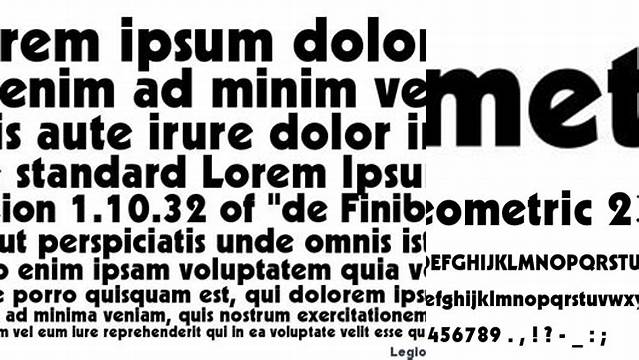
Hey guys! Looking to jazz up your designs with a font that's both modern and impactful? The Geometric 231 Heavy font might just be what you need. In this article, we're diving deep into everything you need to know about this awesome font, where to find it for free, and how to make the most of it in your projects. Let's get started!
What Makes Geometric Fonts Stand Out?
Geometric fonts, like the Geometric 231 Heavy, are characterized by their clean lines, precise shapes, and overall minimalist aesthetic. They're built on basic geometric forms such as circles, squares, and triangles, giving them a structured and modern look. This makes them incredibly versatile for a wide range of design applications. When you're aiming for clarity and a contemporary feel, geometric fonts are your best bet. They lend a sense of order and sophistication to any project.
The Appeal of Simplicity in Design
One of the key reasons geometric fonts are so popular is their simplicity. In a world often cluttered with visual noise, the clean, unadorned nature of these fonts offers a refreshing break. This simplicity doesn't mean they lack character; rather, it allows the underlying message to shine through without distraction. For designers, this means greater control over the visual hierarchy and the ability to create designs that are both eye-catching and easy to read. Moreover, the simplicity of geometric fonts ensures they remain legible even at small sizes, making them ideal for body text as well as headlines.
Geometric Fonts in Branding
In the realm of branding, geometric fonts can be particularly effective. They convey a sense of modernity, efficiency, and trustworthiness, qualities that many brands seek to project. Companies in tech, finance, and other industries often gravitate towards geometric typefaces for their logos and marketing materials. The consistent and clean appearance of these fonts helps to establish a strong visual identity that resonates with their target audience. Furthermore, geometric fonts pair well with a variety of design elements, allowing for flexibility in creating a cohesive brand aesthetic.
Unpacking the Geometric 231 Heavy Font
The Geometric 231 Heavy font is a specific iteration within the geometric font family, known for its bold and impactful appearance. The "Heavy" designation indicates a thicker stroke weight, making it particularly suitable for headlines, titles, and other prominent text elements. Its strong visual presence commands attention and ensures readability, even from a distance. Whether you're designing a poster, a website header, or a logo, Geometric 231 Heavy can help you make a statement.
Key Characteristics of Geometric 231 Heavy
What sets Geometric 231 Heavy apart from other geometric fonts? Its defining characteristic is its weight – the thickness of the strokes. This heavy weight gives it a powerful presence, making it ideal for situations where you need to grab attention. The font maintains the clean, structured look typical of geometric fonts, but with added emphasis. This makes it a great choice for headlines, titles, and branding materials where you want to convey strength and confidence. The even distribution of weight across each character ensures a balanced and harmonious appearance, contributing to its overall appeal.
Design Applications for Geometric 231 Heavy
Thinking about where you can use Geometric 231 Heavy? The possibilities are endless. Its bold nature makes it perfect for headlines and titles in magazines, posters, and websites. In branding, it can be used for logos and taglines to create a memorable and impactful brand identity. It also works well in packaging design, particularly for products that want to project a sense of modernity and quality. The font's legibility ensures it can be used in shorter blocks of body text, such as captions or callouts. Overall, Geometric 231 Heavy is a versatile tool that can enhance a wide range of design projects.